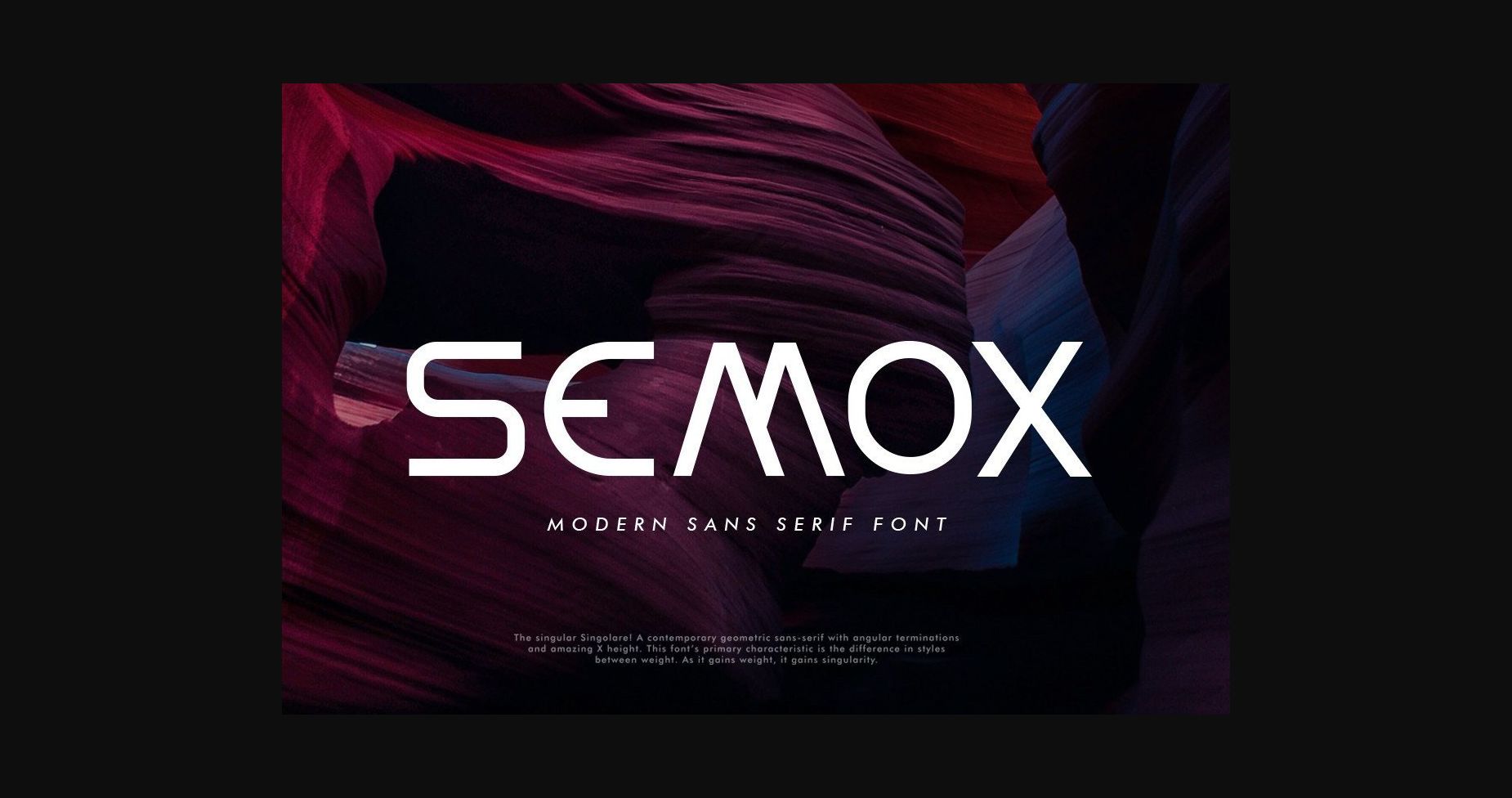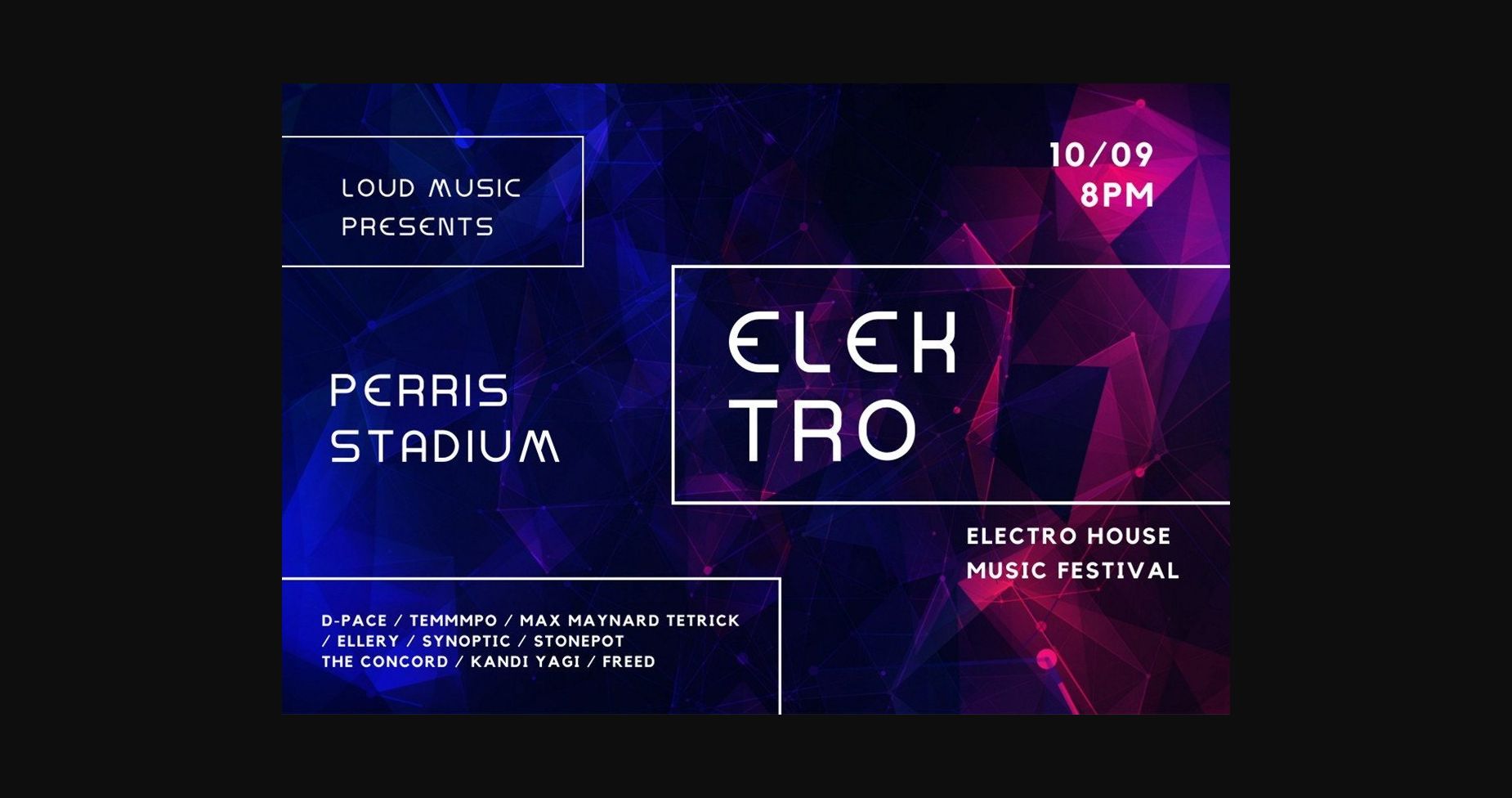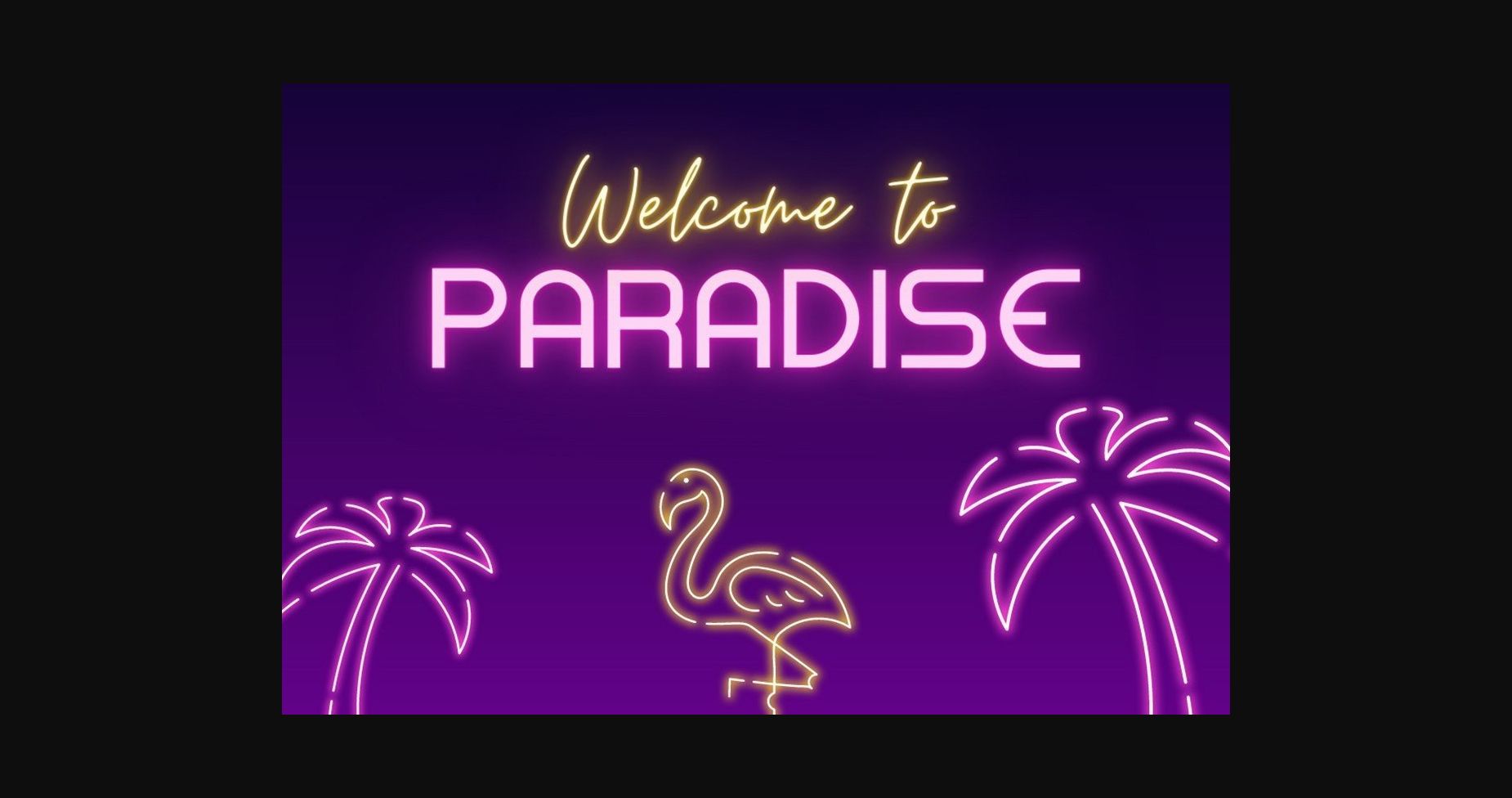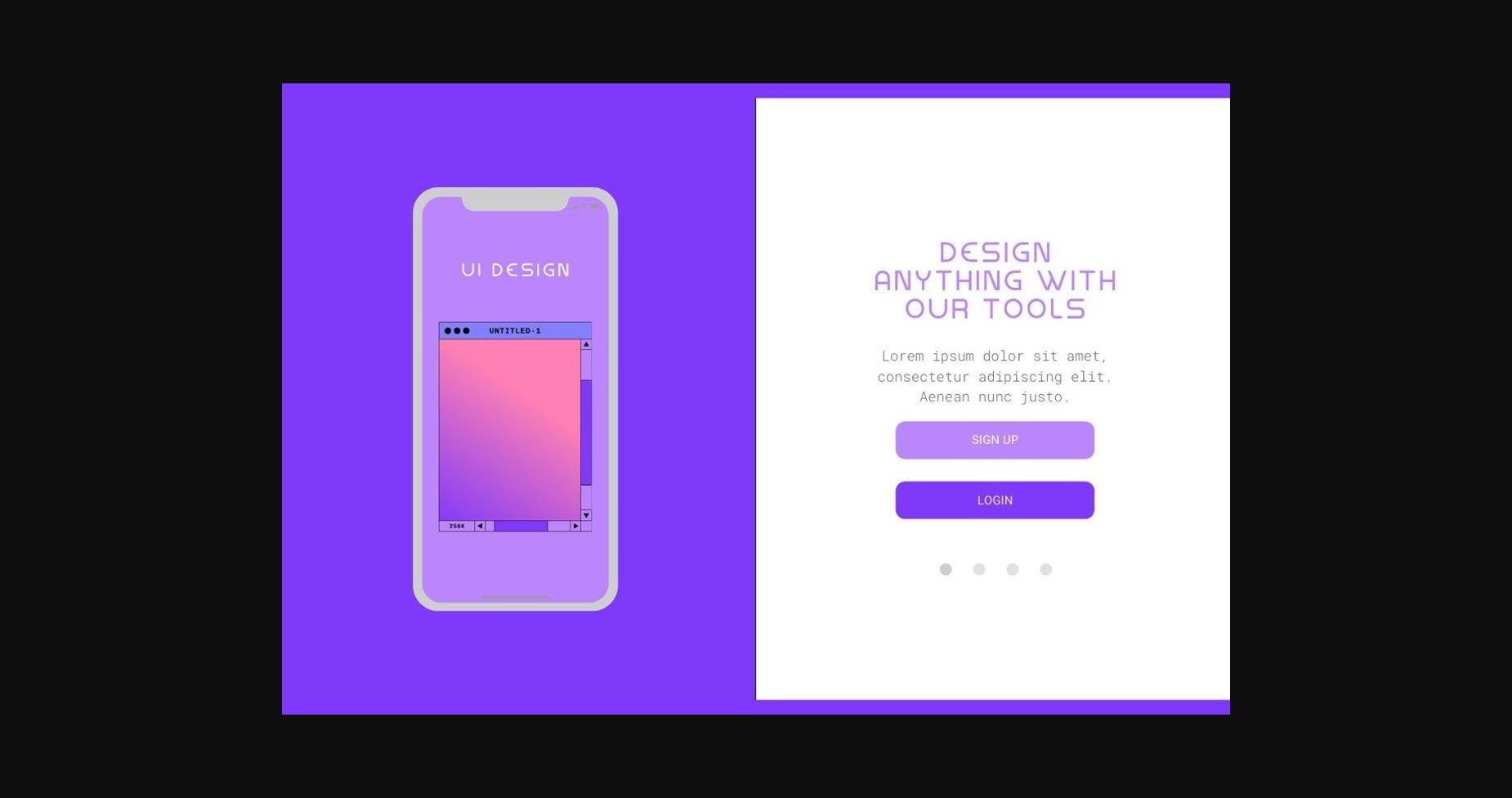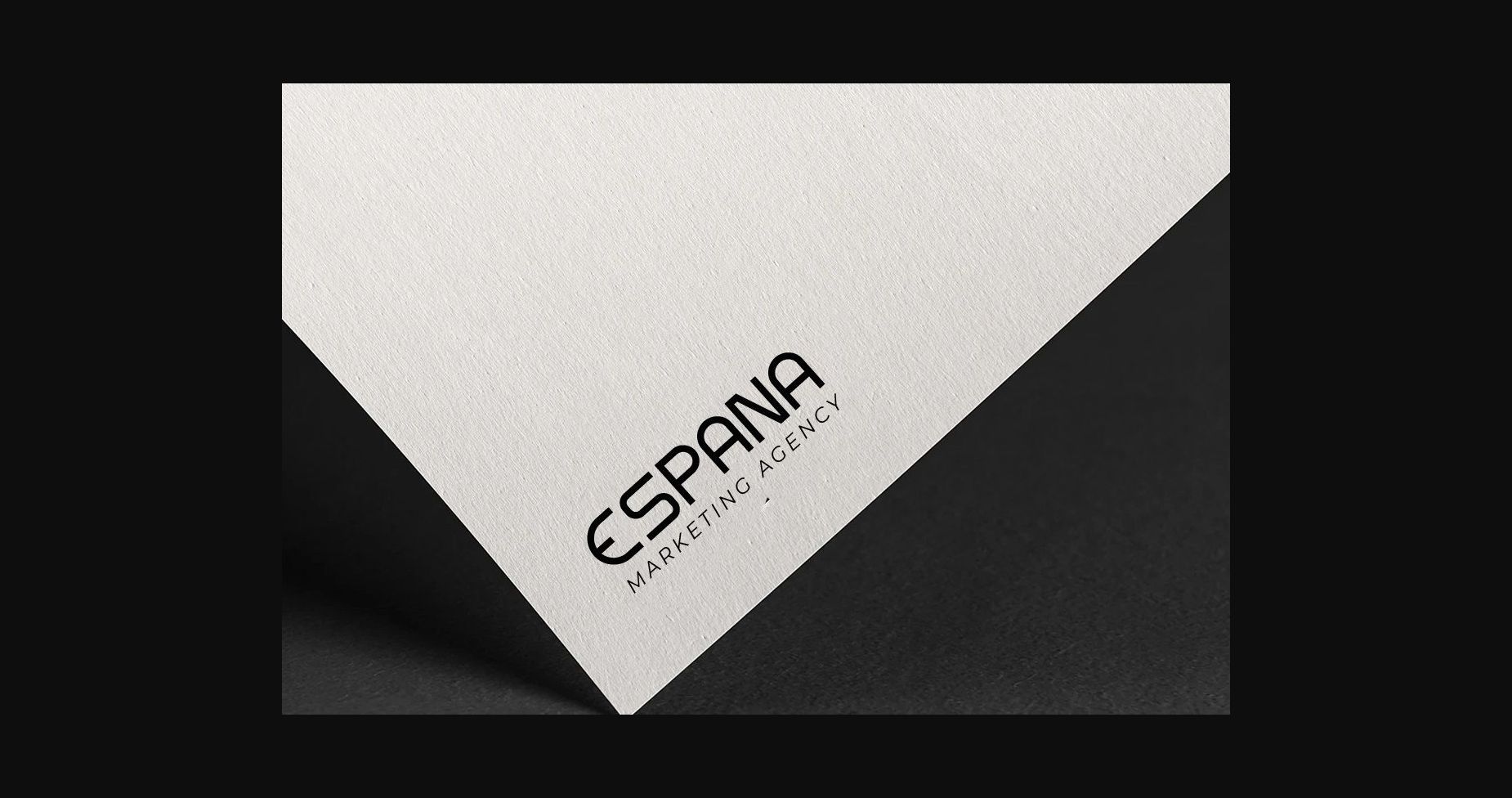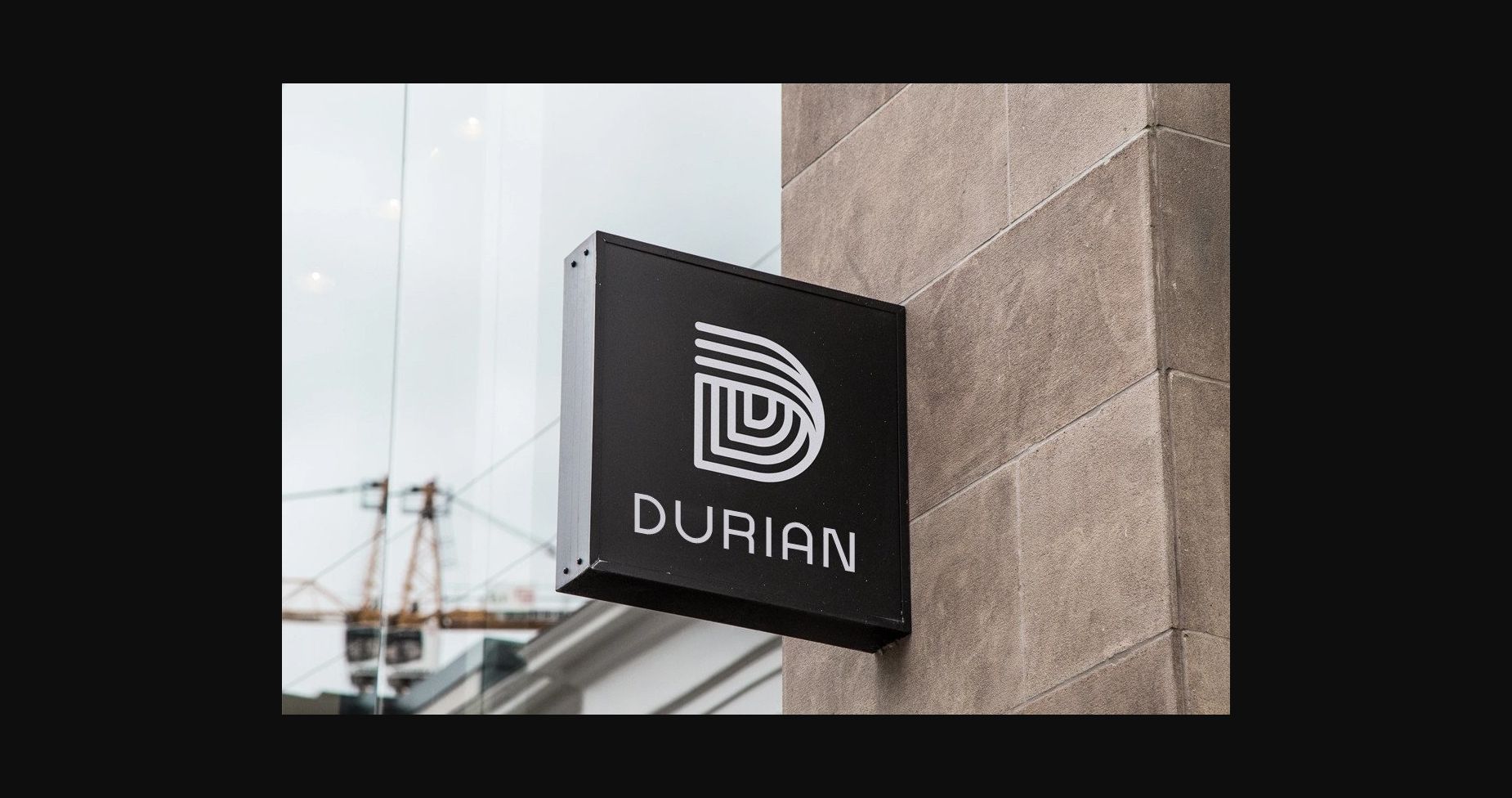
Semox Font
About Semox Font
Semox is a sans-based font with unique lowercase that will make your design look futuristic and modern. You can use this font for any purpose, especially to make logotypes.